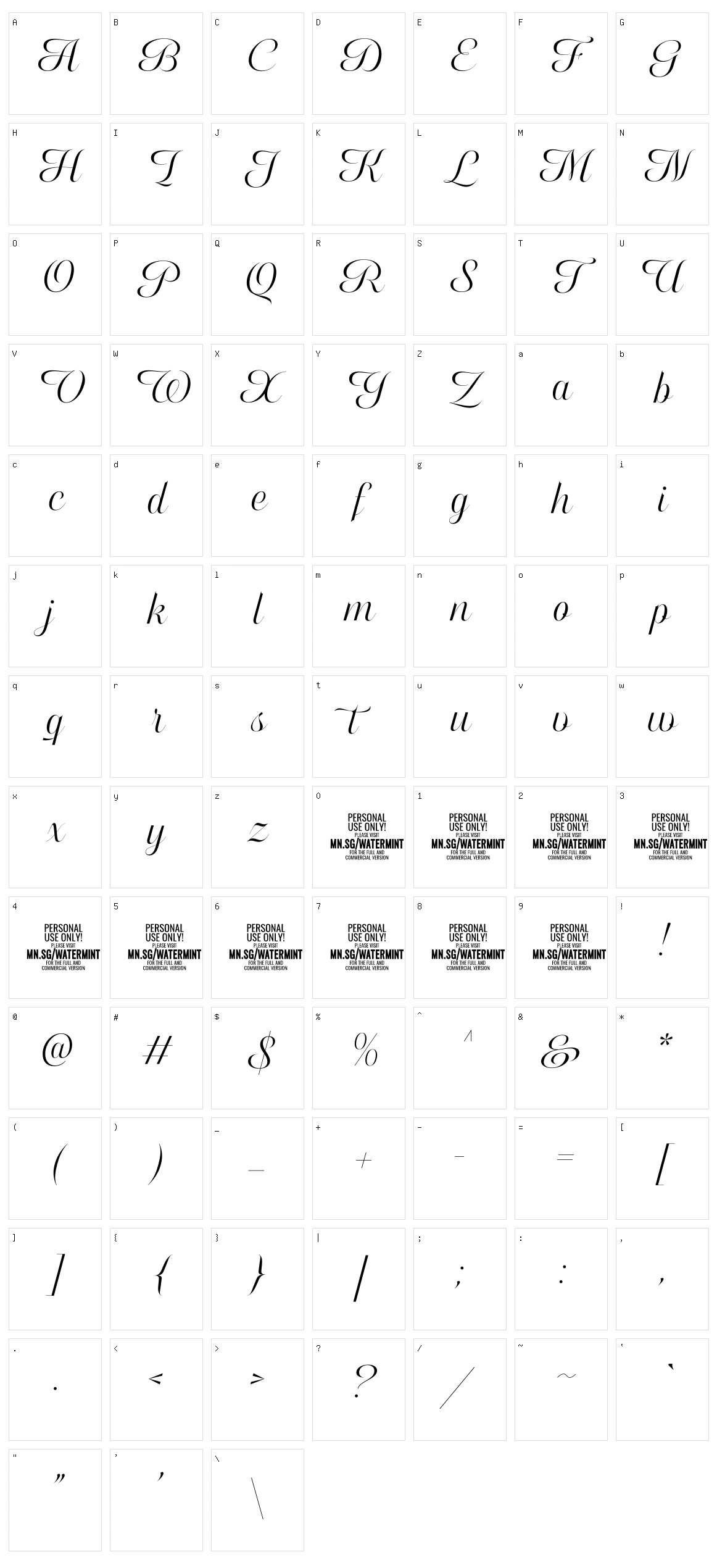
Watermint Script is a formal typeface that epitomizes the essence of elegance and sophistication.
Envisioned for formal settings, its calligraphic strokes evoke a sense of classic beauty, making it an ideal choice for invitations or logotypes that demand a touch of class.
Watermint Script is a harmonious blend of cute and lovely, wrapped in a feminine and romantic design. Its light and fresh appearance breathes life into each word, offering a clean and flawless presentation. The font's perfection lies in its attention to detail, with each character exuding a classy aura that enhances the overall visual experience.
The font is built with advanced OpenType functionality and guaranteed top-notch quality, containing stylistic and contextual alternates, ligatures and more automatic and manual features; all to give you full control and customizability. It has extensive lingual support, covering all Latin-based languages, from North Europa to South Africa, from America to South-East Asia. It contains all characters and symbols you'll ever need, including all punctuation and numbers.
Designed by Mans Greback, Watermint Script is a testament to his commitment to creating fonts that are not just tools of communication, but artworks that enrich the visual landscape.